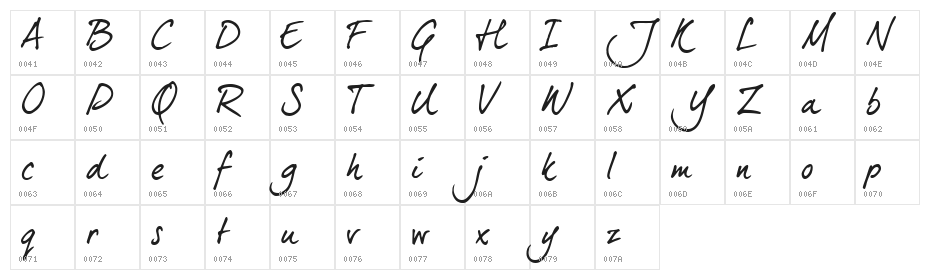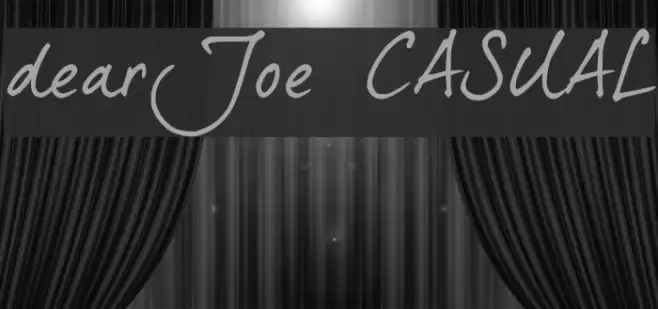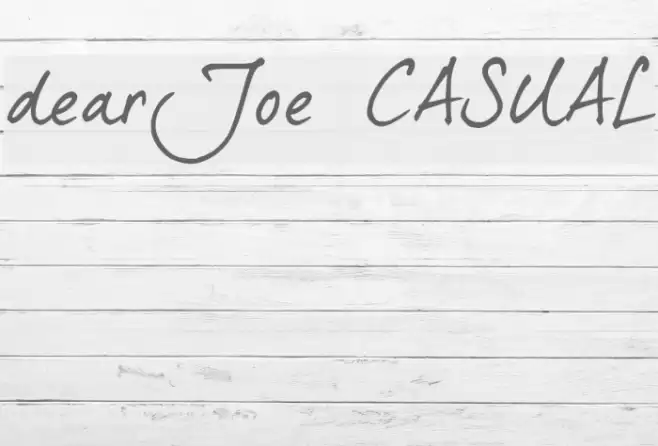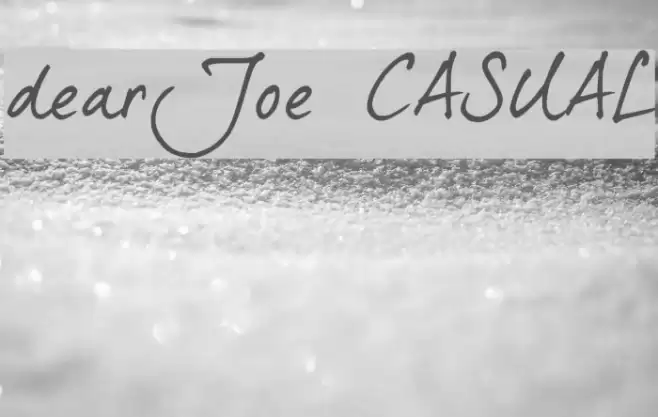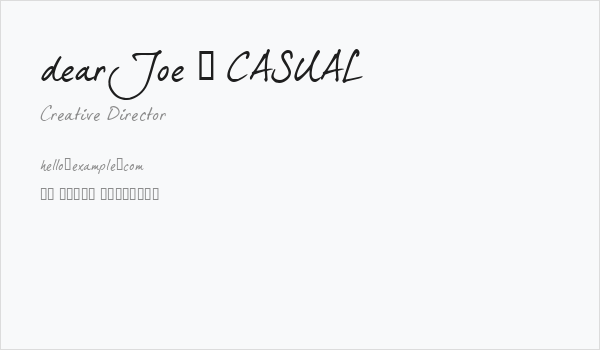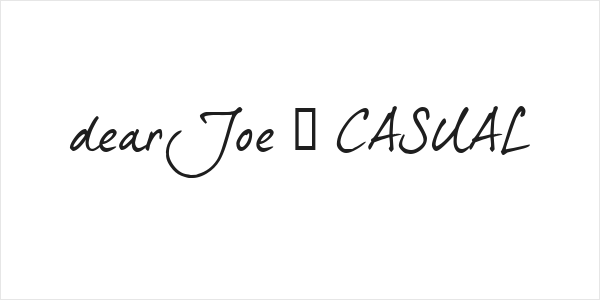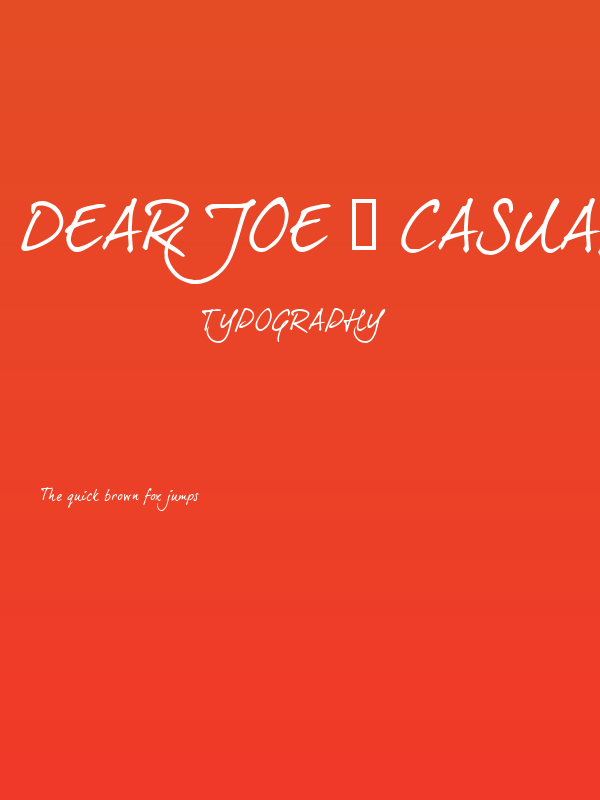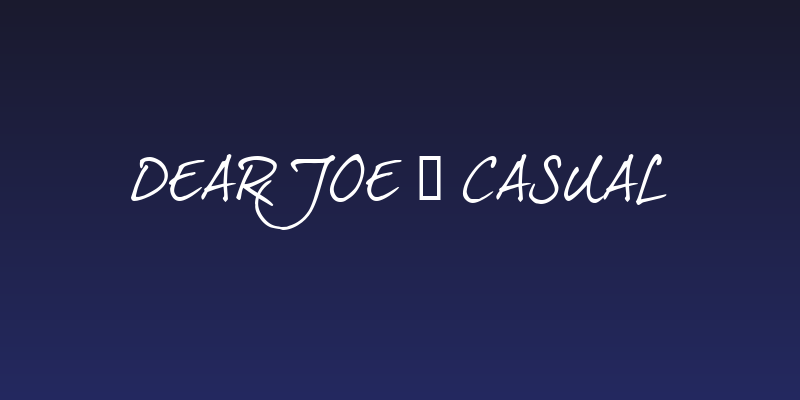
dearJoe 5 CASUAL Font
dearJoe 5 CASUAL Description
This font exhibits a casual, handwritten style with a fluid and dynamic appearance. The uppercase letters are slightly slanted, giving a sense of motion and informality. The lowercase letters maintain a consistent flow, with some characters featuring distinctive loops and curves that enhance its handwritten charm. The strokes are moderately thick, providing a balanced contrast that ensures readability while retaining a personal touch. The overall design is approachable and friendly, making it suitable for projects that require a personal or informal tone. The spacing between characters is normal, allowing for clear legibility without appearing too tight or loose.
| Use Case | Logos, Invitations, Personal letters |
| Proposed Projects | Ideal for greeting cards, personal letters, invitations, and informal branding projects. |